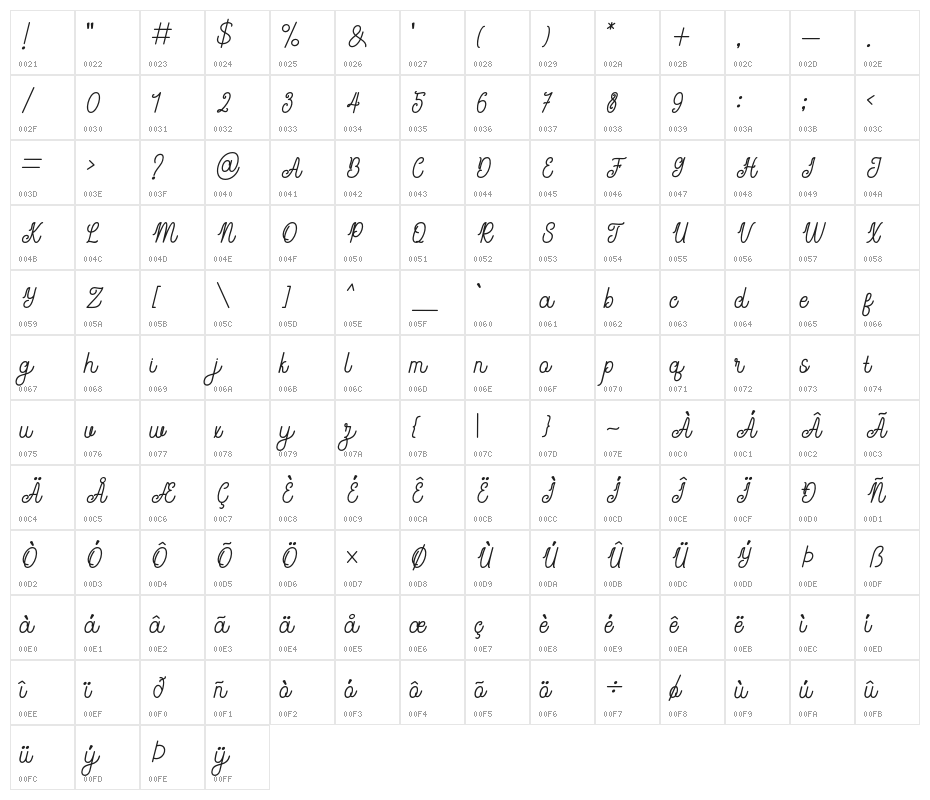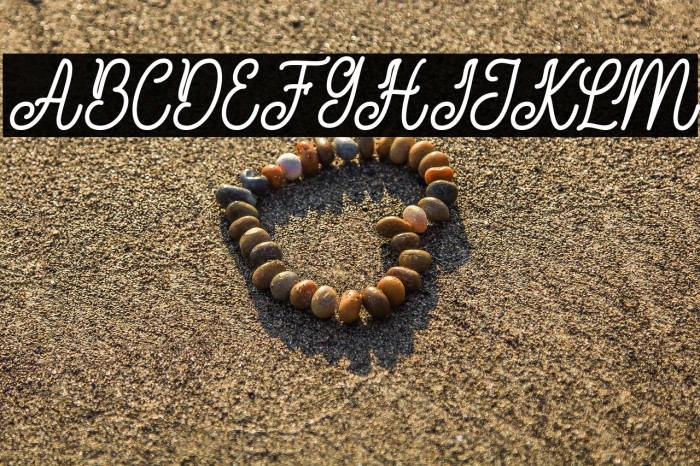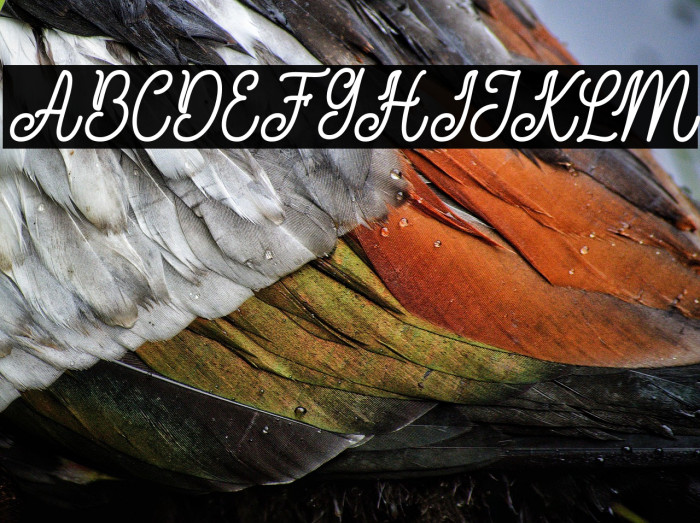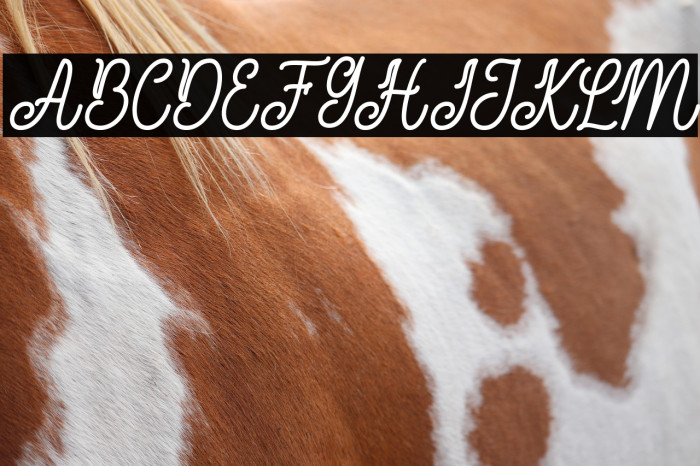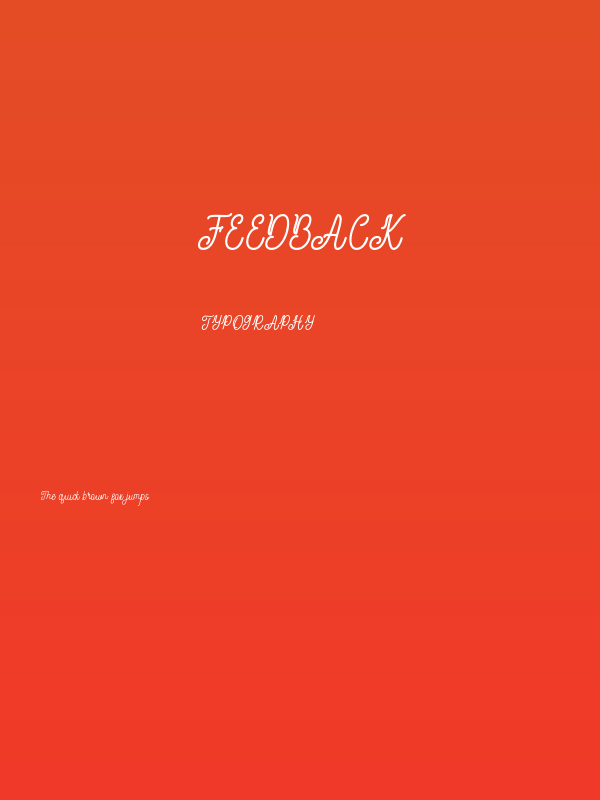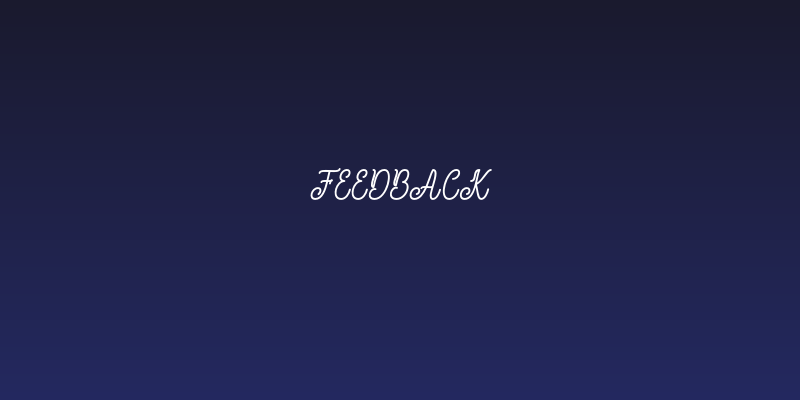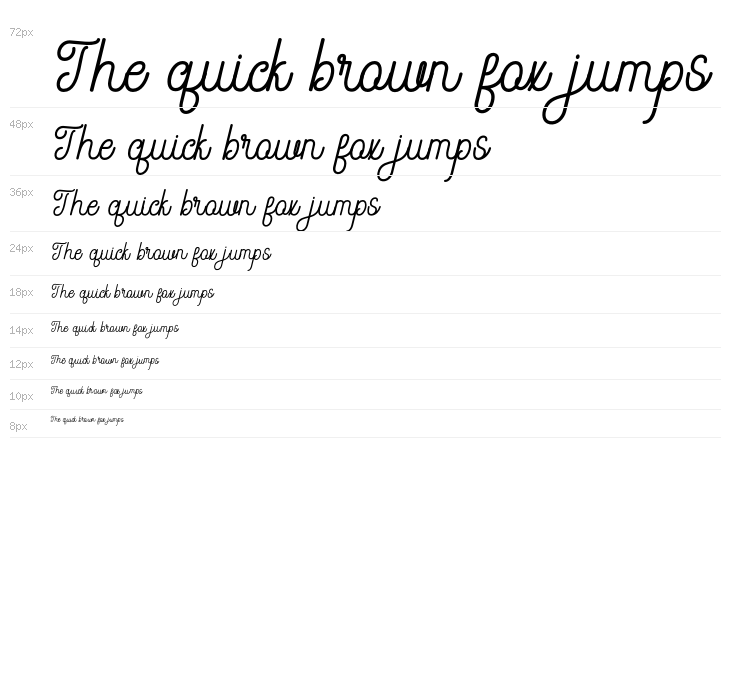
feedback Font
feedback Description
This elegant script font features a flowing, cursive style that mimics the fluidity of handwriting. The characters are interconnected, creating a seamless and sophisticated appearance. With its graceful loops and swirls, it exudes a sense of elegance and charm. The uppercase letters are slightly more ornate, while the lowercase letters maintain a consistent, smooth flow. The numerals and special characters are designed to complement the overall aesthetic, ensuring a cohesive look across all text. This font is perfect for adding a touch of refinement and personality to any project.